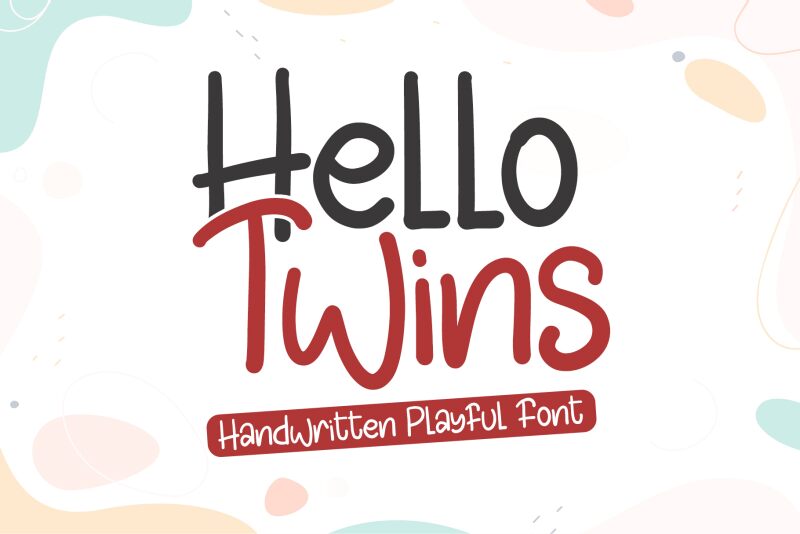
Hello Twins is a delightfully whimsical font crafted by Annisa Afni of Tuins Studio. Exuding a playful, cartoon-like essence, this display typeface boasts thick, expressive strokes that dance across the page, capturing a sense of movement and energy. The playful, rounded letterforms evoke a sense of joy and lightheartedness, making it an excellent choice for a variety of design applications that seek to convey a fun, approachable aesthetic.
The vibrant, hand-drawn appearance of Hello Twins lends itself beautifully to children's books, greeting cards, and branding projects that aim to create a warm, inviting atmosphere. Whether used for headlines, titles, or short bursts of text, this font's distinctive character will undoubtedly captivate and engage audiences, elevating any design with its whimsical charm.